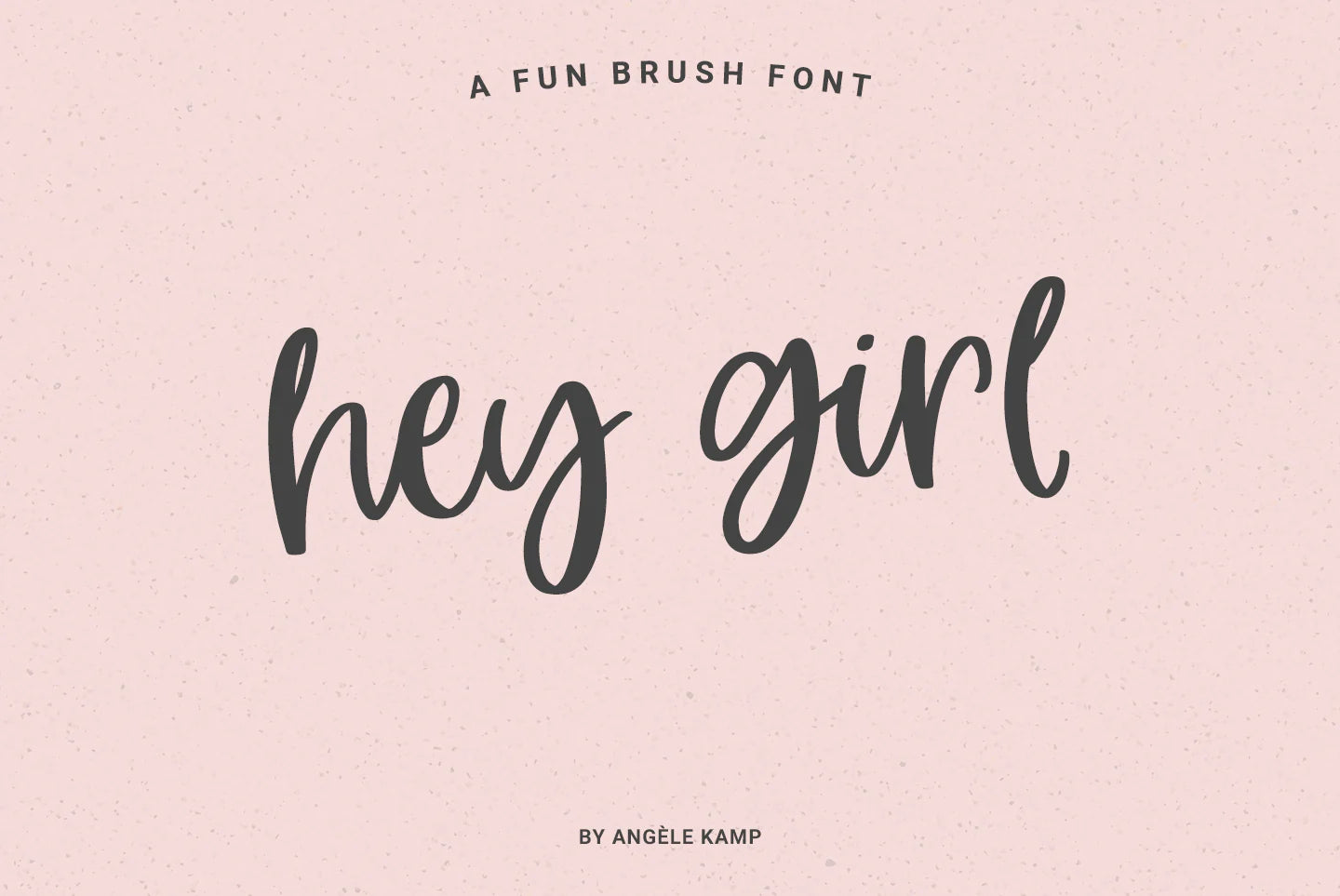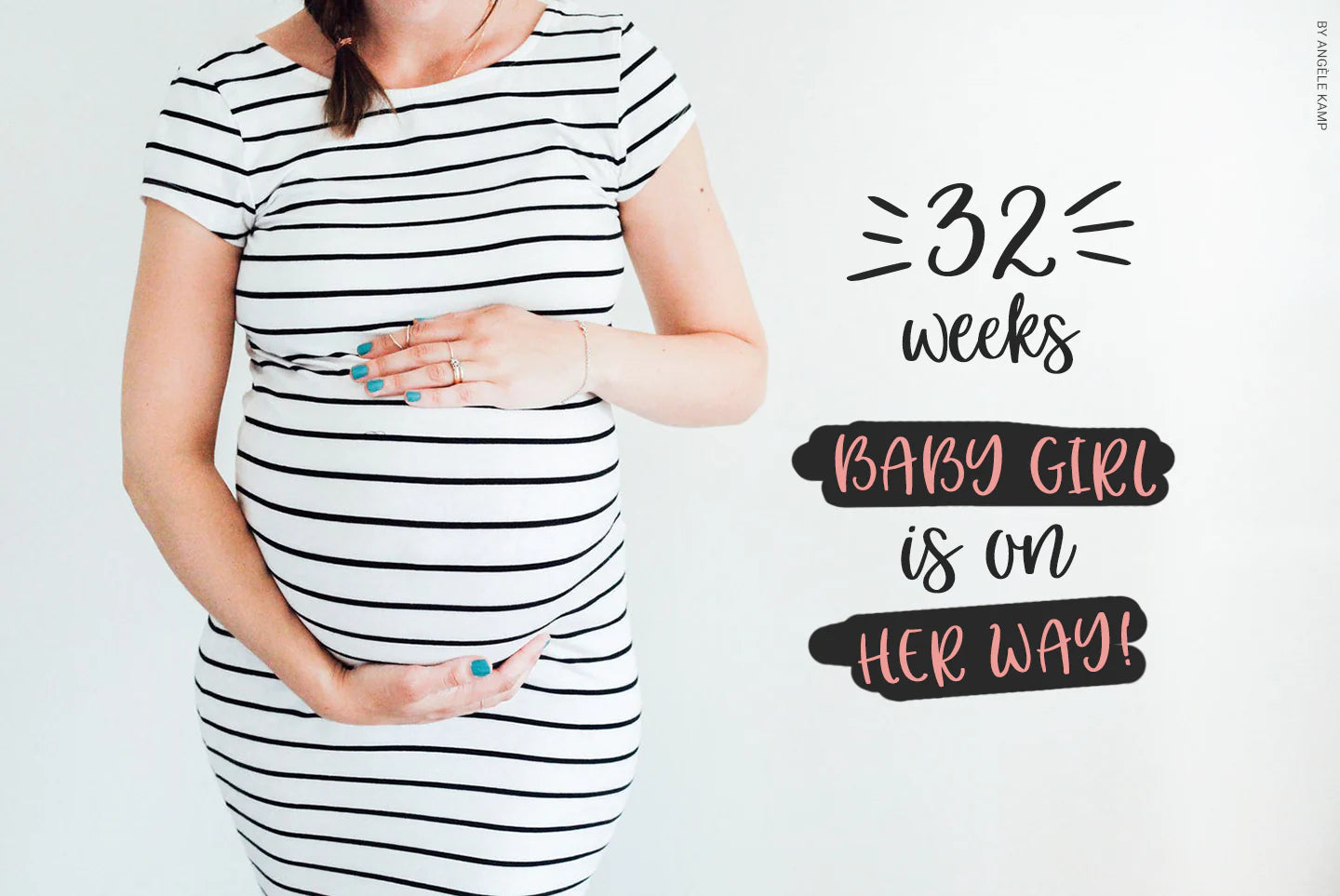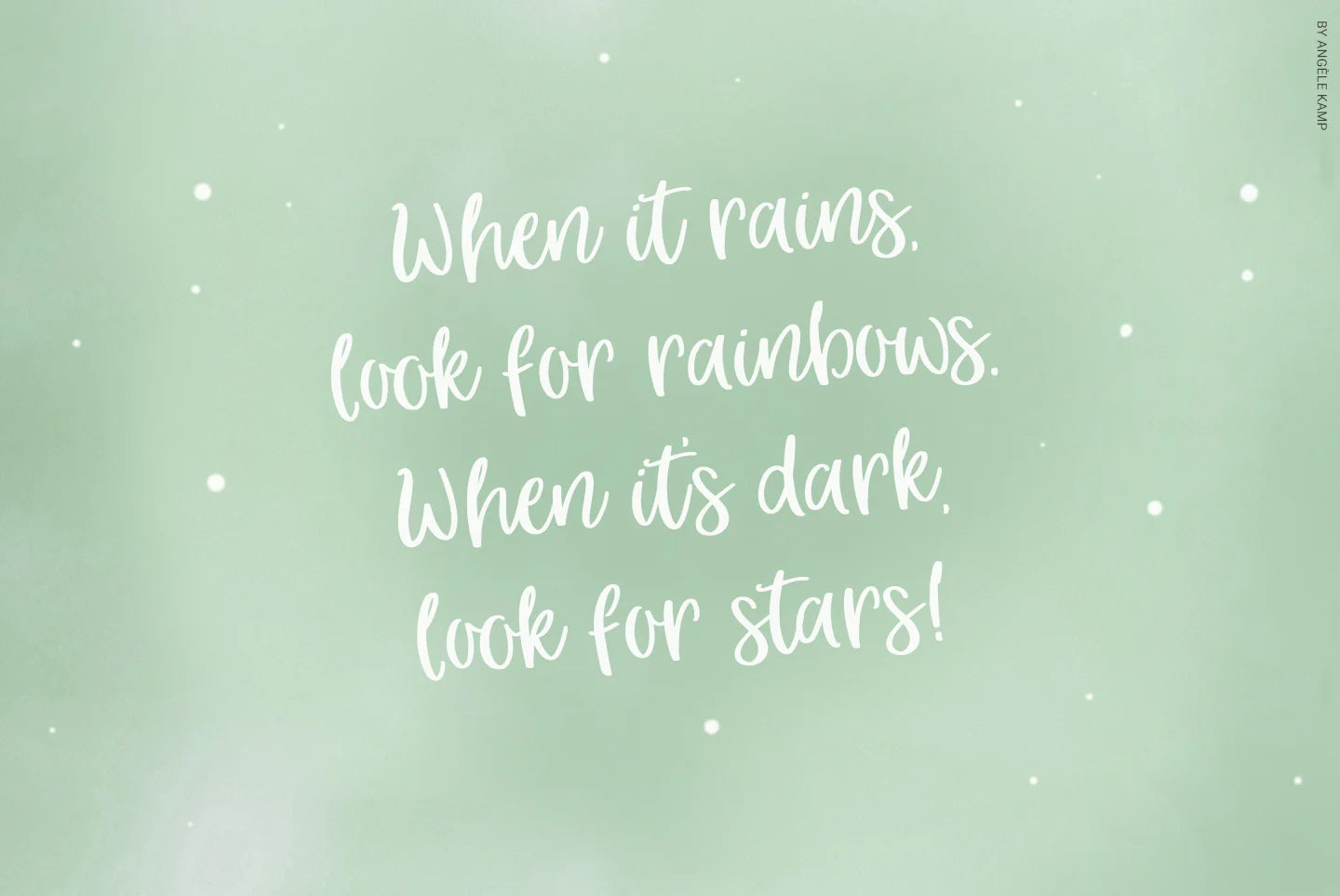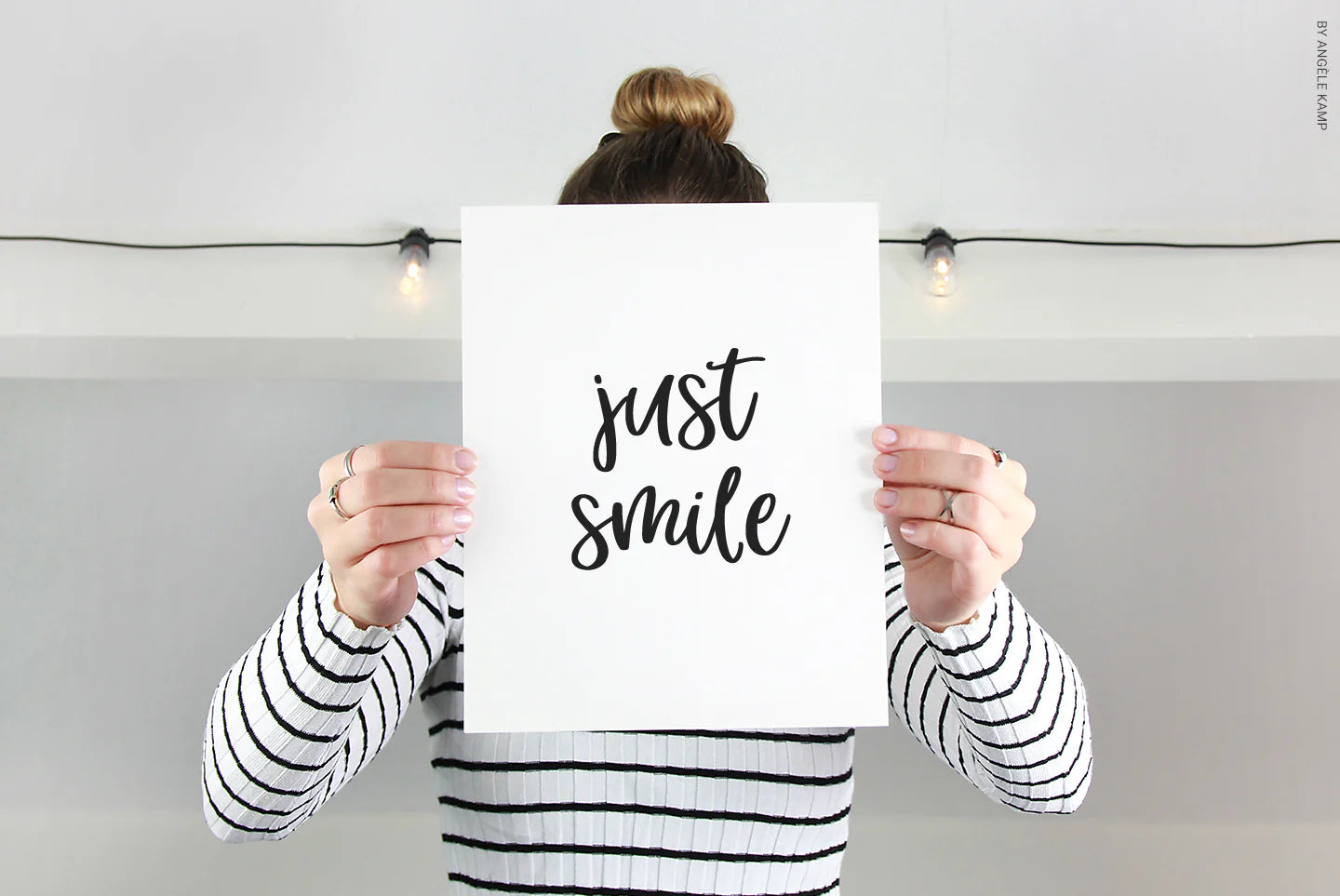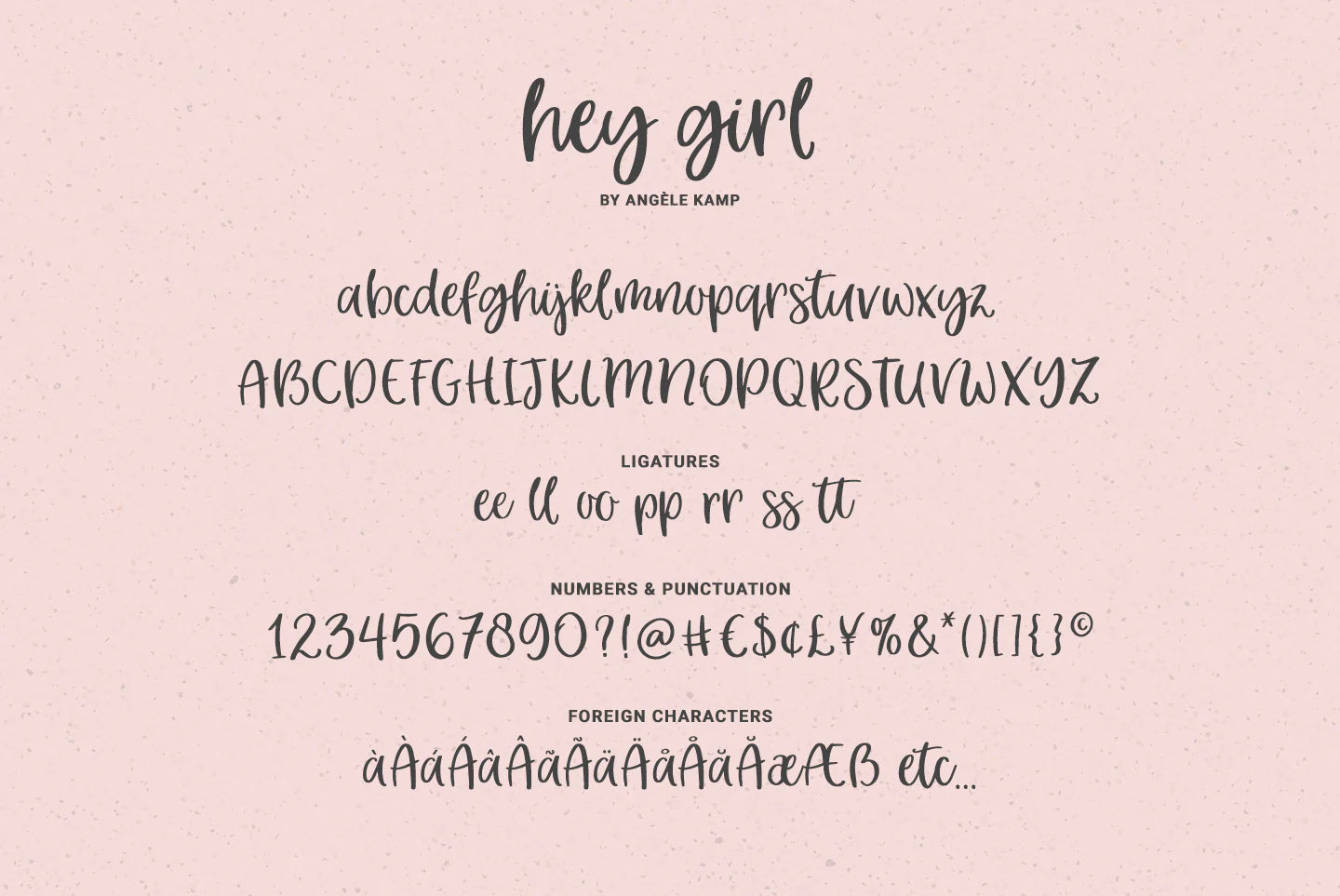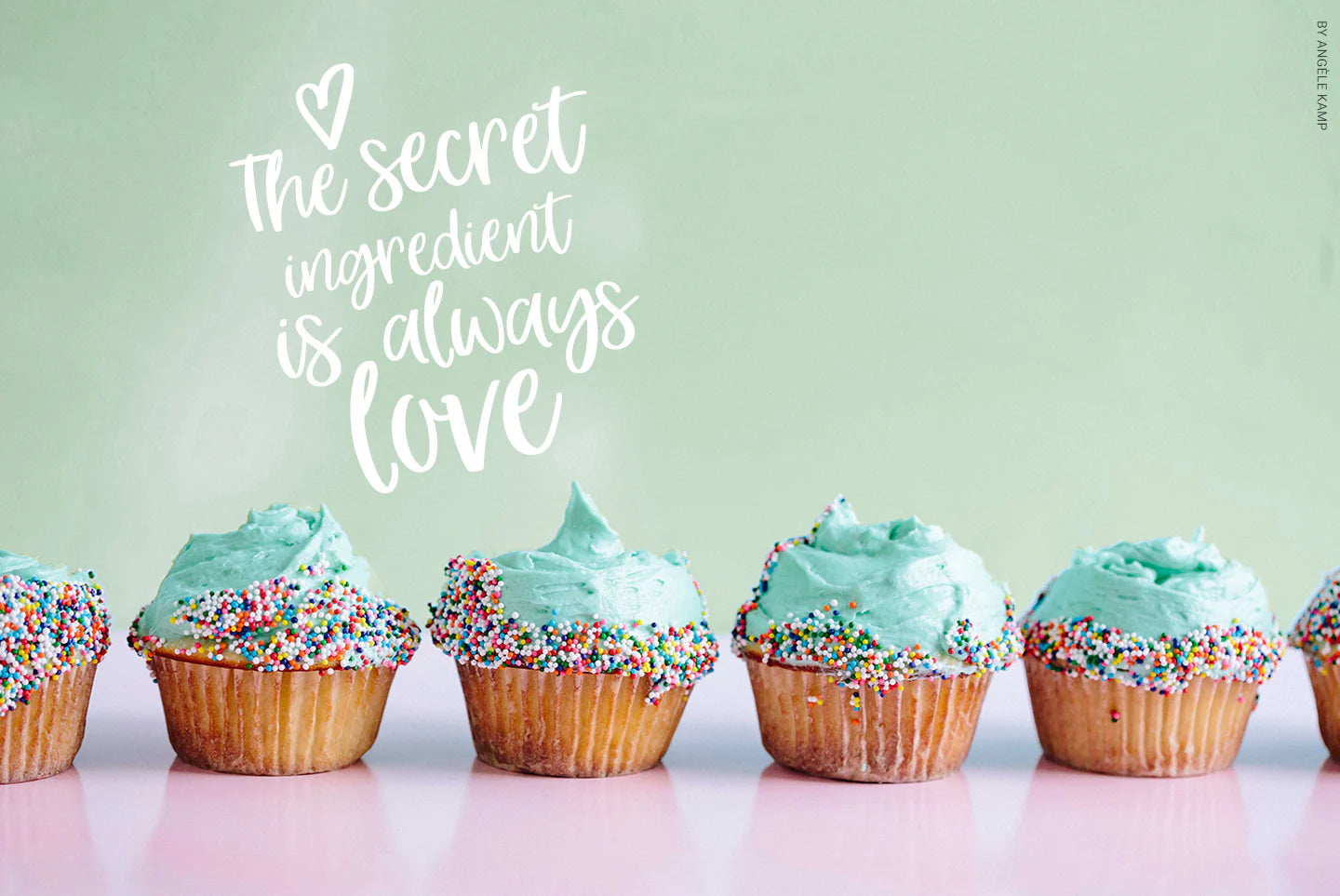
Hey Girl Font
Hey Girl is a fun, brush font with a bouncy baseline. This playful font will give your designs that fresh, modern feel to it and will look lovely on quotes, cards, logos and all your other lovely projects. Hey Girl has nice smooth lines which makes it perfect for crafters and cutting machines.
Hey Girl contains standard characters, lowercase, uppercase, numbers, punctuation, ligatures, and international characters.